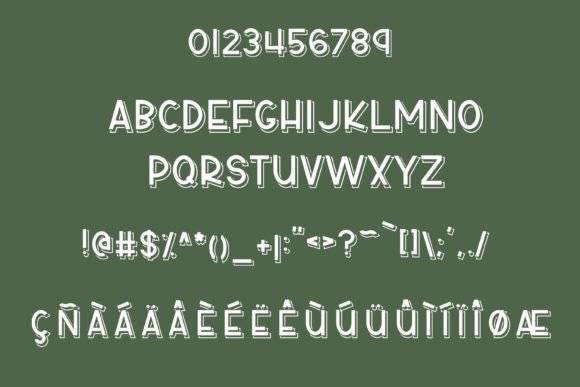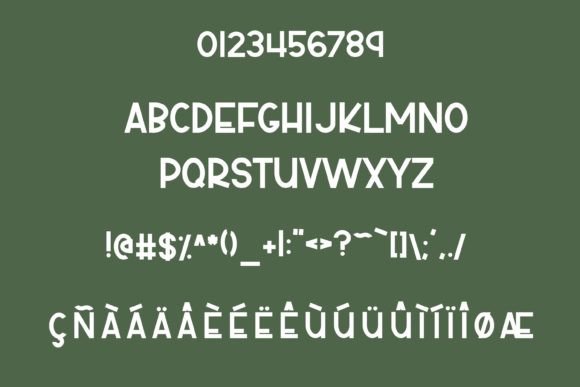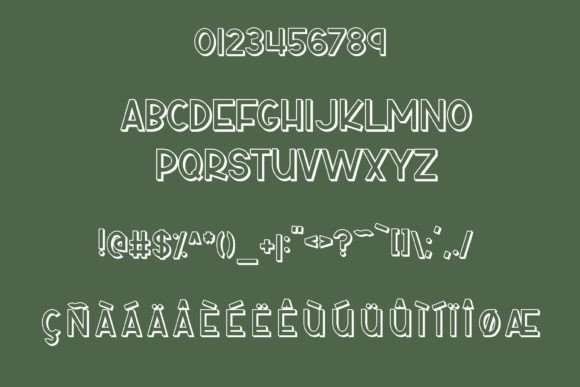
Introduction to Cranberries Font
Introducing Cranberries, a delightful font trio with a pop of personality.
This fun, playful, and retro-inspired font offers three unique styles that work seamlessly together With bold lines, offset shadows, and an eye-catching vintage vibe, Cranberries is the perfect choice for making your headlines and designs burst with character.
Key Features of Cranberries Font